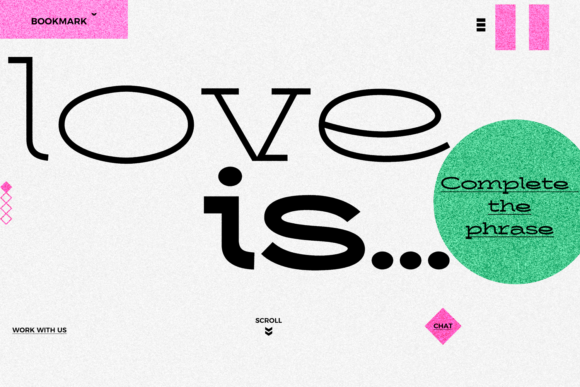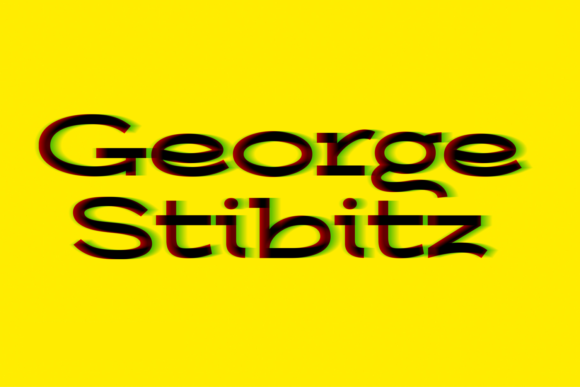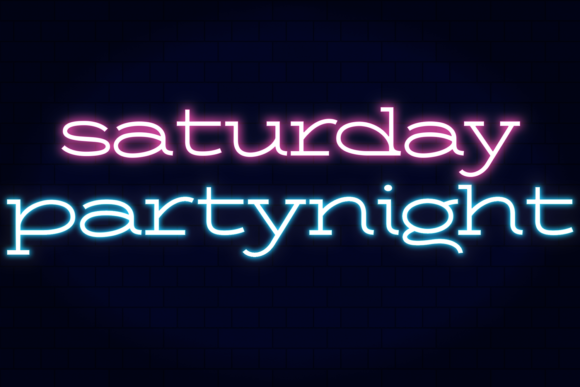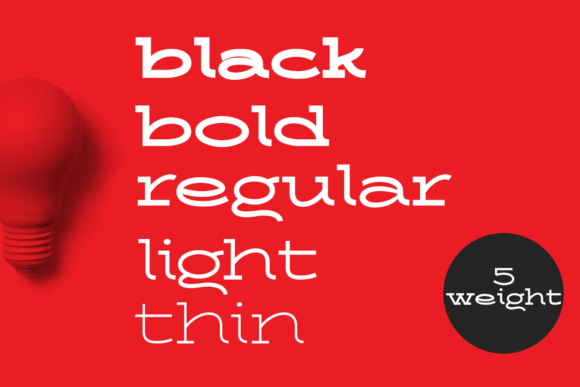
Broad Range Font: Elevate Your Designs with a Cool and Vintage Flair
Are you on the hunt for a font that adds a touch of vintage charm to your designs? Look no further than Broad Range, a stunning slab serif font that’s perfect for posters, flyers, and prints. With its cool and retro aesthetic, Broad Range is sure to elevate your designs and leave a lasting impression.
What is Broad Range Font?
Broad Range is a carefully crafted slab serif font that’s designed to bring a sense of nostalgia and sophistication to your designs. Its unique blend of vintage flair and modern style makes it an excellent choice for designers and crafters looking to add a touch of personality to their work.
Whether you’re creating posters, flyers, brochures, or prints, Broad Range is the perfect font to use. Its clear and legible design ensures that your message gets across, while its stylish aesthetic adds a touch of elegance and refinement.
Key Features of Broad Range Font
So, what makes Broad Range font so special? Here are just a few of its key features:
- Vintage Flair: Broad Range has a distinctly retro feel that’s perfect for designs that require a touch of nostalgia.
- Slab Serif Design: The font’s slab serif design gives it a sturdy, dependable feel that’s perfect for headlines and titles.
- Clear and Legible: Despite its vintage flair, Broad Range is incredibly clear and legible, making it perfect for body text and longer passages.
- Highly Versatile: Broad Range can be used for a wide range of designs, from posters and flyers to prints and digital media.
One of the best things about Broad Range font is its endless possibilities. Whether you’re a designer, crafter, or DIY enthusiast, this font can be used to create a wide range of projects, including:
- Posters and Flyers: Use Broad Range to create eye-catching posters and flyers that grab attention and communicate your message.
- Prints and Brochures: Add a touch of vintage flair to your prints and brochures with Broad Range’s unique slab serif design.
- Digital Media: Use Broad Range to create stunning digital media, including social media graphics, email headers, and more.
- Crafting Projects: Broad Range can be used for a wide range of crafting projects, including card making, scrapbooking, and more.
Why Choose Broad Range Font?
So, why choose Broad Range font for your designs? Here are just a few reasons:
- Unique and Eye-Catching: Broad Range’s vintage flair and slab serif design make it a unique and eye-catching font that’s sure to stand out.
- Highly Versatile: This font can be used for a wide range of designs and projects, making it an excellent addition to any designer’s toolkit.
- Easy to Read: Despite its vintage flair, Broad Range is incredibly clear and legible, making it perfect for body text and longer passages.
In conclusion, Broad Range font is an excellent choice for designers and crafters looking to add a touch of vintage flair to their designs. With its unique slab serif design, clear and legible aesthetic, and endless possibilities, Broad Range is sure to elevate your designs and leave a lasting impression.